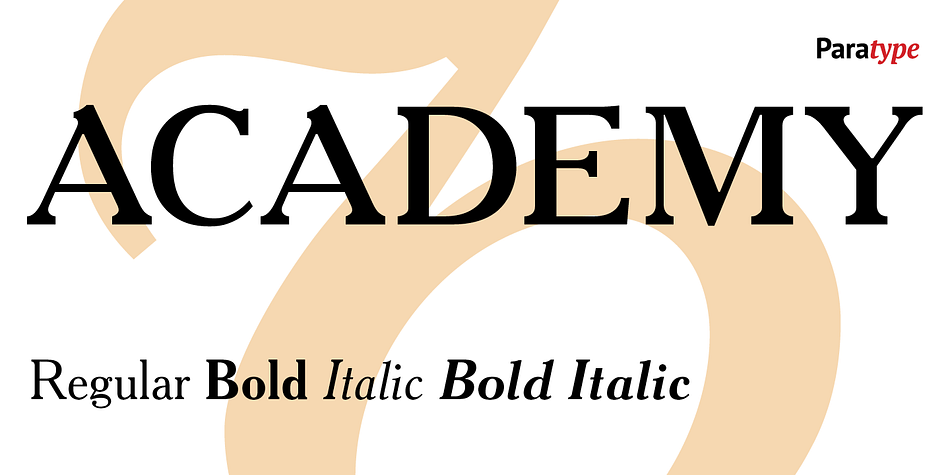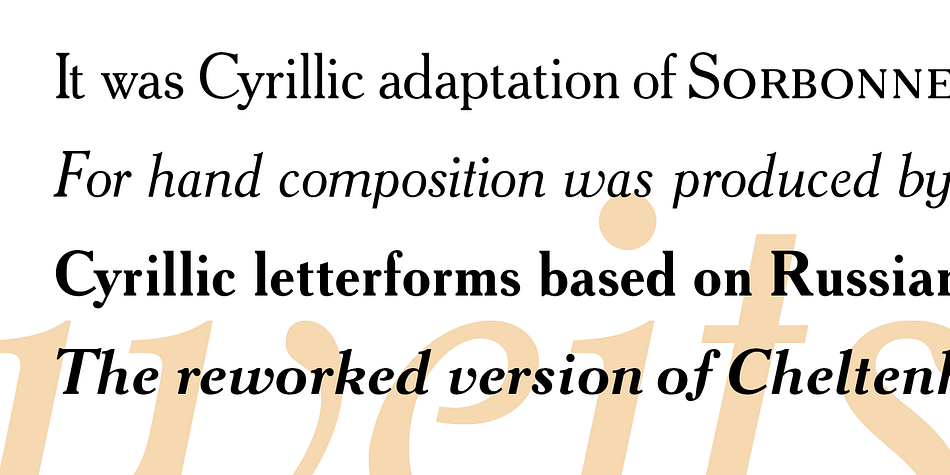
Academy
Designed by Lyubov Kuznetsova and Alexander Tarbeev, Academy is a grunge, serif and display serif font family. This typeface has five styles and was published by ParaType.
Academy was designed circa 1910 at the Berthold type foundry (St.-Petersburg). It was based on Sorbonne (H. Berthold, Berlin, 1905), which represented the American Type Founders rework Cheltenham of 1896 (designers Bertram G. Goodhue, Morris F. Benton) and Russian typefaces of the mid-18th century. It is a low-contrast text typeface with historical flavor.
The modern digital version was designed at Polygraphmash type design bureau in 1989 by Lyubov Kuznetsova. Corrections and additions were done later in ParaType in the early 00’s. The reworked version with Bold Italic style was released in 2009 and the extended version of the Book style with small caps was released in 2013. Corrections and extensions were done by Vladimir Yefimov.